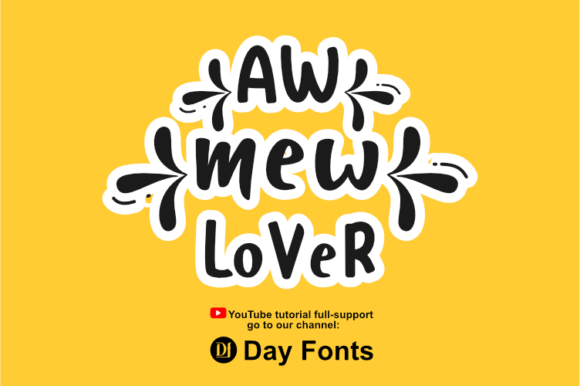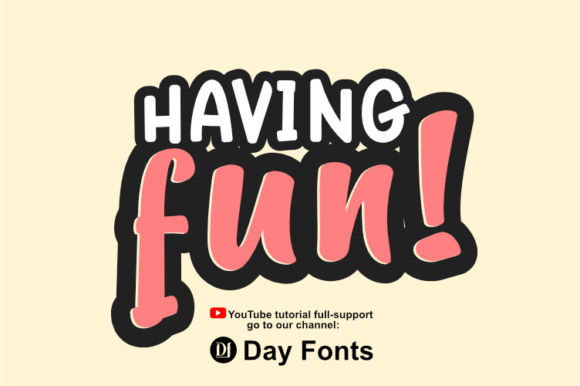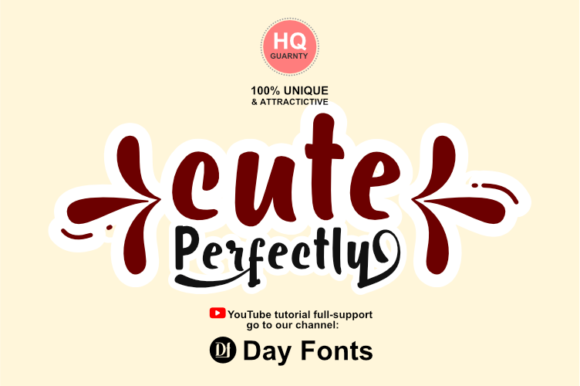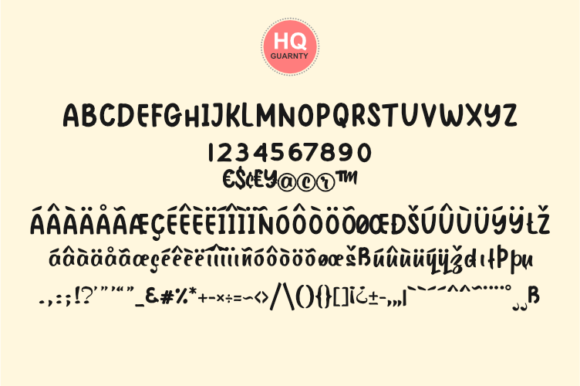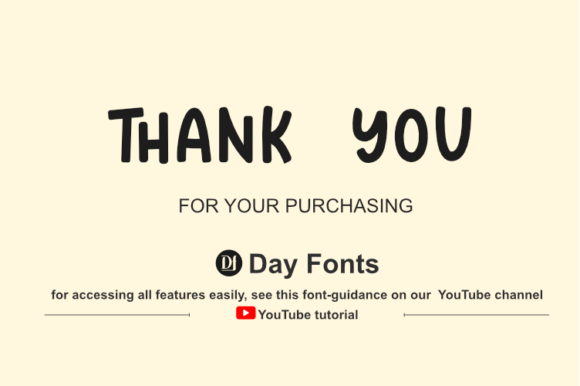
Introduction to Cutesy Font
Cutesy is a simple, adaptable and tall display font.
This font is ideal for writing web designs, business cards, or pretty much anything else that requires a unique touch Cutesy is PUA encoded which means you can access all of the glyphs and swashes with ease.